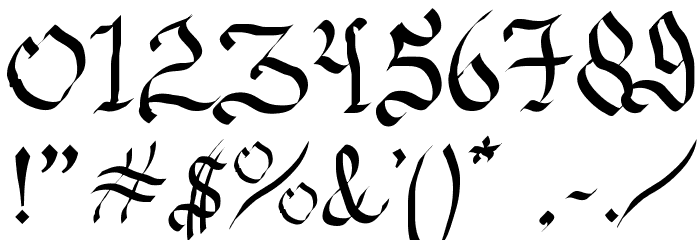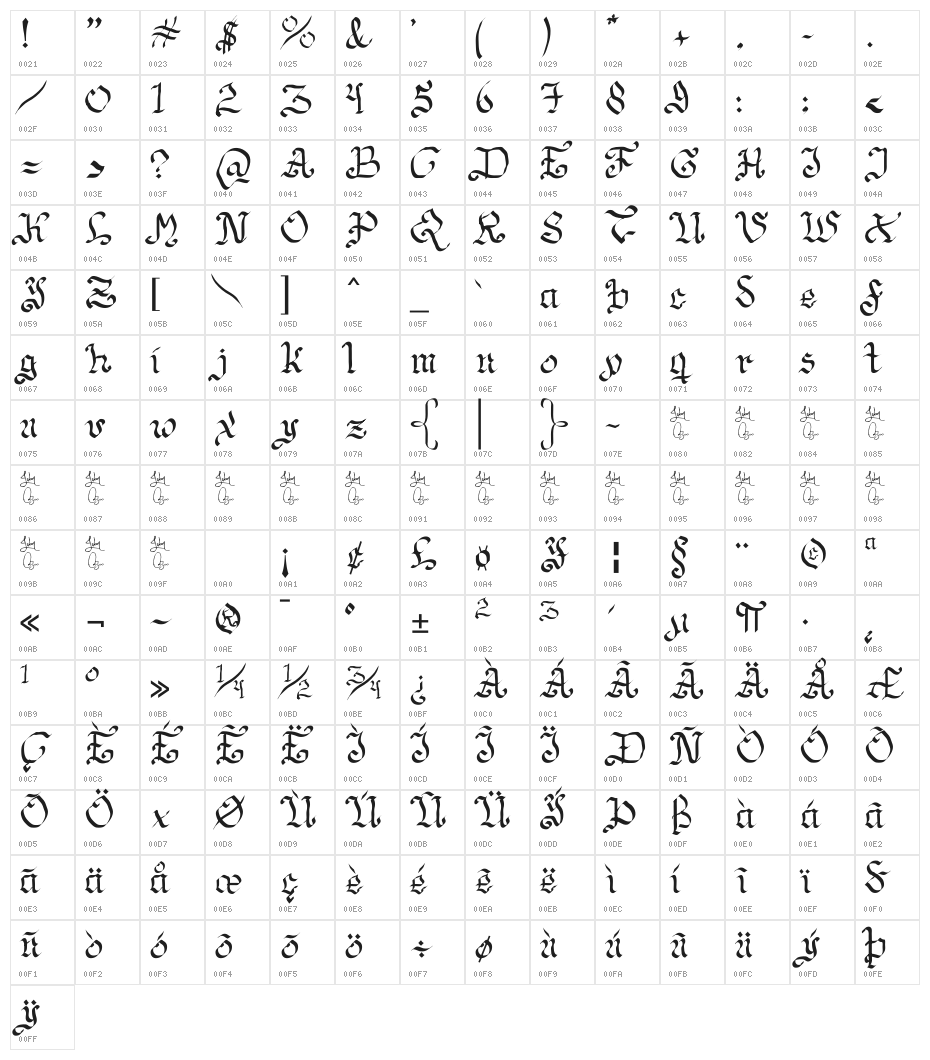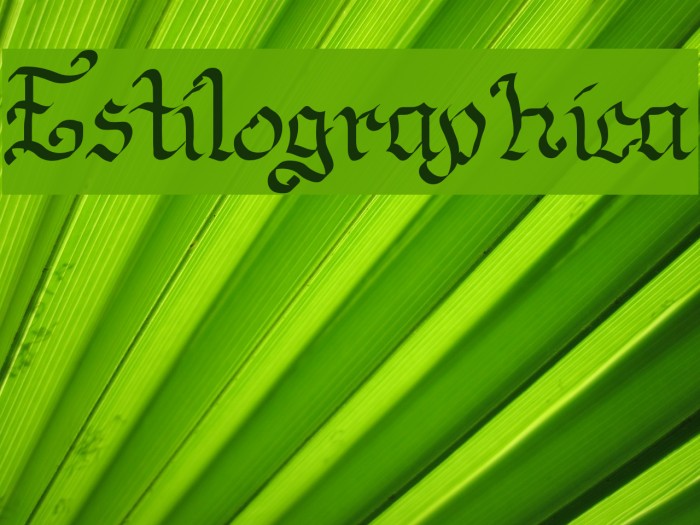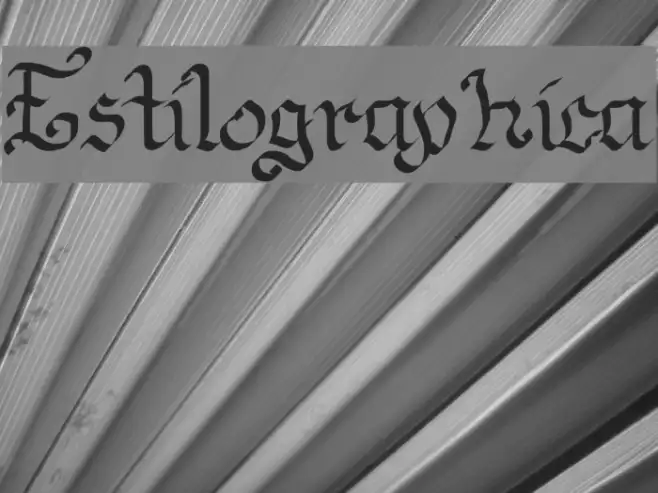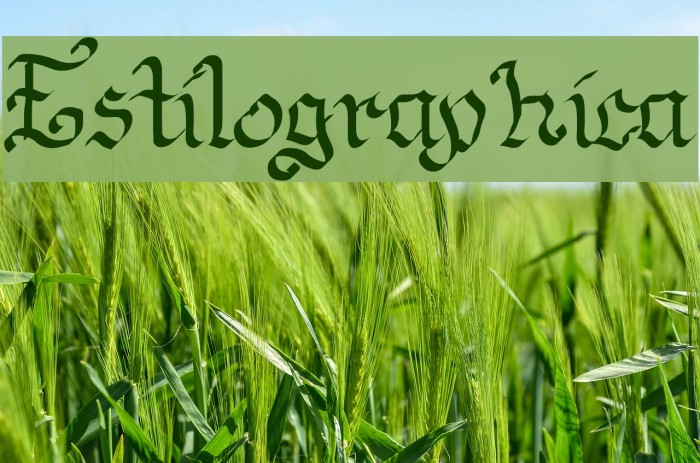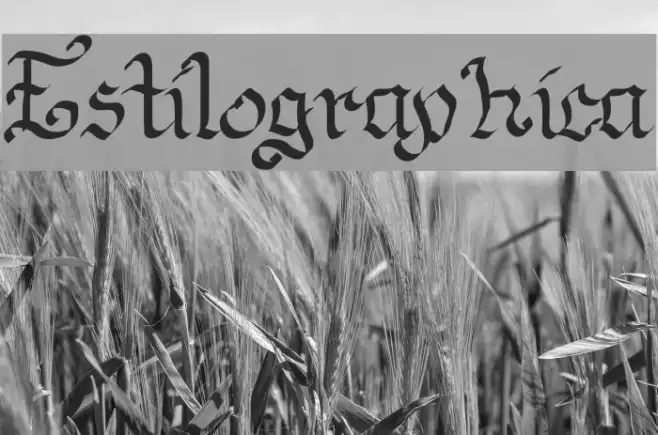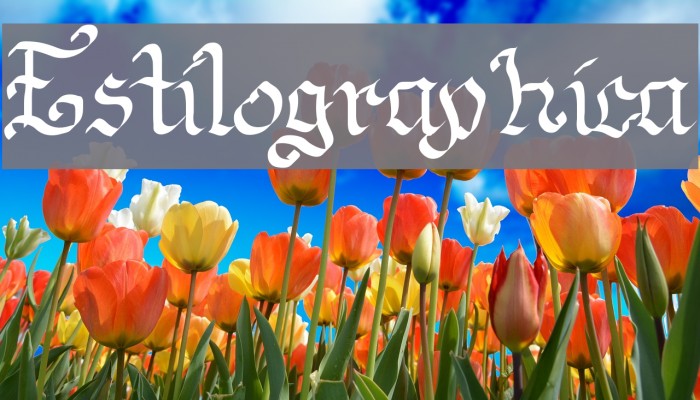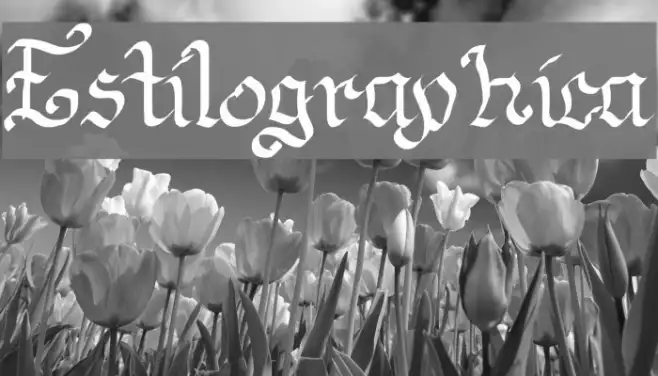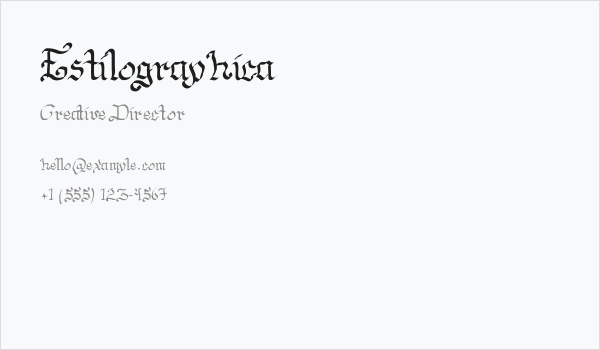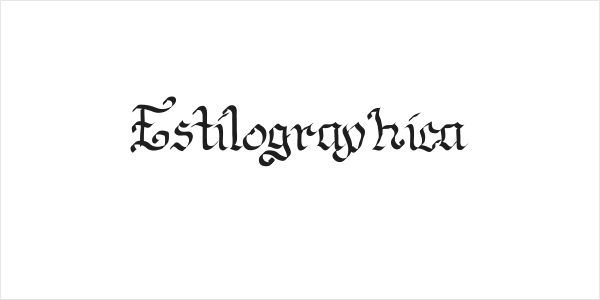
Estilographica Font
Estilographica Description
This font features a highly decorative and intricate design, reminiscent of traditional calligraphy and blackletter styles. The characters are adorned with elaborate flourishes and sharp, angular strokes, creating a sense of elegance and historical charm. The uppercase letters are particularly ornate, with sweeping curves and pointed serifs that give them a majestic appearance. Lowercase letters maintain the same level of detail, ensuring consistency throughout the typeface. Numbers and special characters are equally stylized, making this font suitable for projects that require a touch of sophistication and old-world allure.
| Proposed Projects | Ideal for wedding invitations, certificates, historical documents, and branding that requires a classic and elegant touch. |